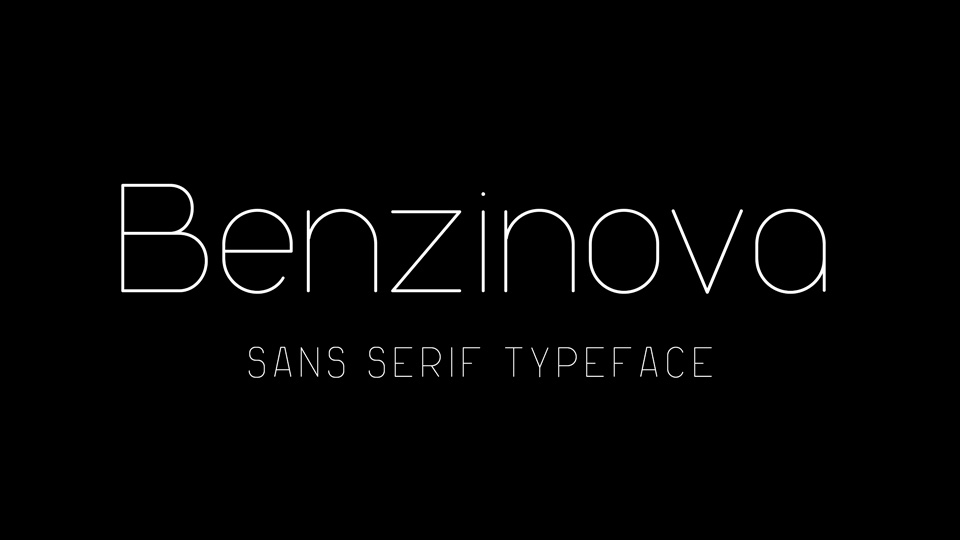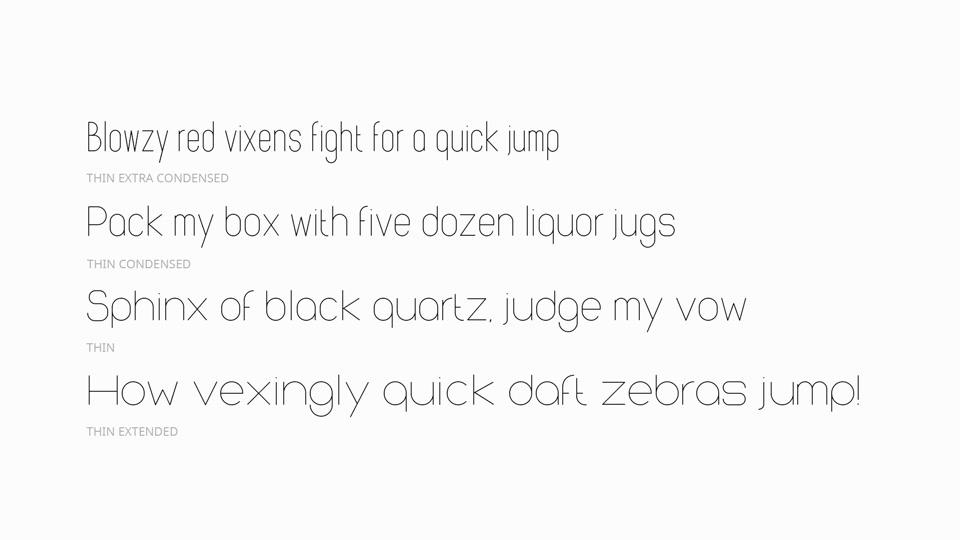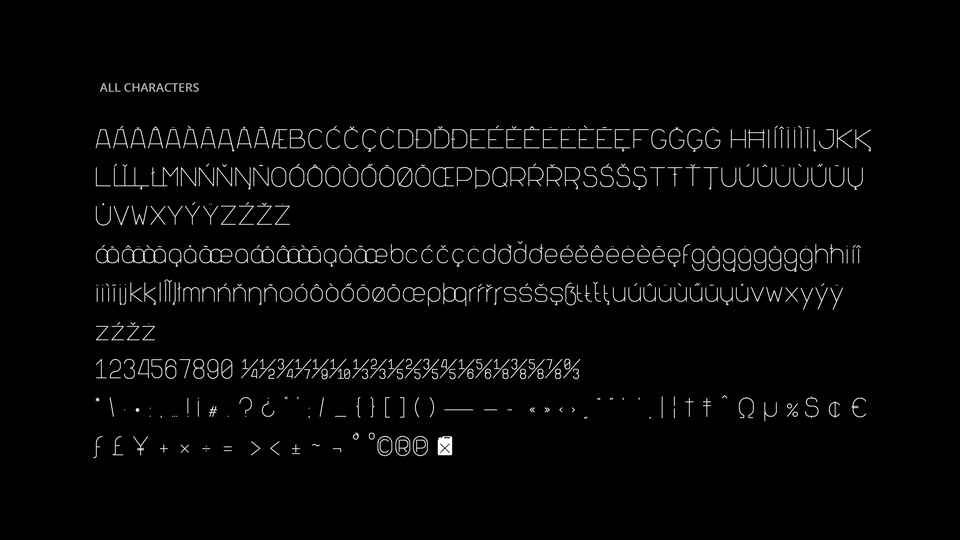
Benzinova font family is a work in progress. In the future the Benzinova is supposed to cover all font weights from 100 (Thin) to 900 (Black). The aim is to achieve reliable numeric relationships between the font weights, having the Black weight being exactly 9 times thicker than the Thin one.
For now Benzinova font family includes Thin weight in Normal, Extra Condensed, Condensed and Expanded styles with a lot of characters and Open Type features.